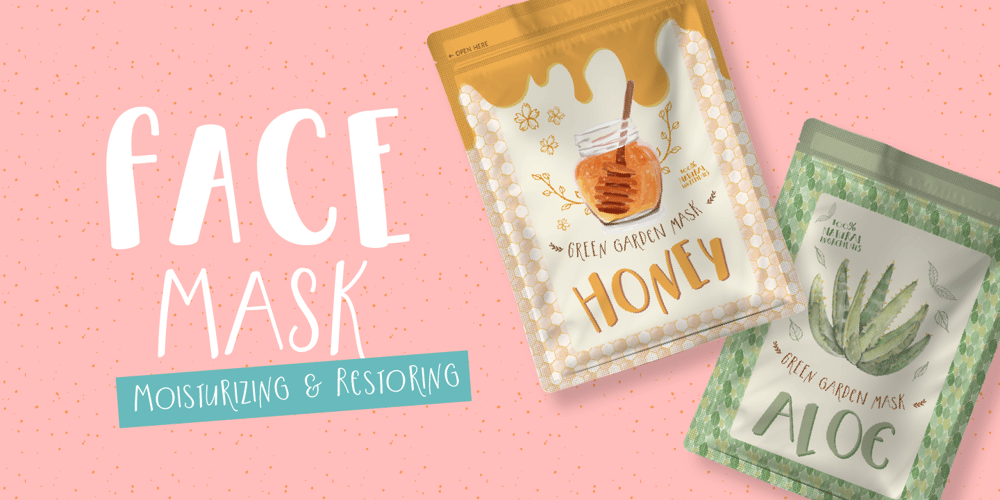
Hello Fresh
Hello Fresh font
Hello Fresh Font Family was designed by Giuseppe Salerno, Paco González and published by Resistenza. Hello Fresh contains 4 styles and family package options. Hello Fresh Font – where freshness meets fun! This lively and bouncing font is here to infuse your graphics with a burst of energy. Designed as an all-caps font, Hello Fresh is specifically tailored to bring a playful mood to your designs. Whether you’re concocting catchy quotes or crafting eye-catching headlines, this font is your go-to choice for adding a whimsical touch to any project.But that’s not all – Hello Fresh goes the extra mile by offering two sets of letters for each font, including both uppercase and lowercase variations. This means you have the flexibility to mix and match alternates for each glyph effortlessly. So, dive into the world of Hello Fresh and let your imagination run wild. Whether you’re designing packaging for artisanal goods or crafting labels for your culinary creations, Hello Fresh adds a delightful touch to any project. Its friendly demeanour and lively character make it the perfect choice for a wide range of applications, including books, invitations, wrapping paper, fashion supplies, and beyond.More About Opentype Features: https://bit.ly/opentype-rsz